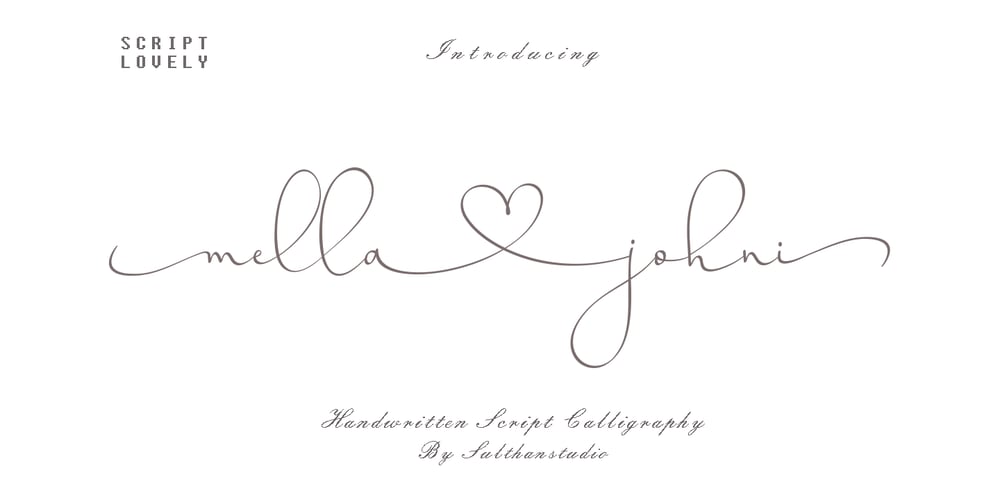
Mella johni Font Family was designed by Nasrullah and published by Sulthan Studio. Mella johni contains 1 styles and family package options. The font that I made last year and was just ready today, is very attractive with the latest trendy style, it will really satisfy you if you use it in all your work, be it on social media or your handiwork.because this font has many alternative letters according to your wishessuch as capital letters which have four replacement letters and lower case letters which have various swashes and alternatives and also heart connectors. Of course this font will have many choices of how to use the characters and is also very cute.has 591 glyphs equipped with uppercase letters, lowercase letters, numbers, punctuation marks and also language support.Thank you for checking out and purchasing my font